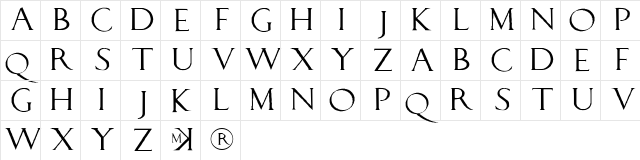
LucaPacioliRough Regular
LucaPacioliRough embraces imperfection — its rough, textured character adds raw authenticity to designs that want to feel lived-in and unconventional.
Suited to punk-influenced zines, underground music branding, streetwear, and raw, anti-corporate design.
Pro Tip: Pair LucaPacioliRough with intentionally raw or lo-fi design elements. Fighting against it with overly polished surroundings will undermine its personality.